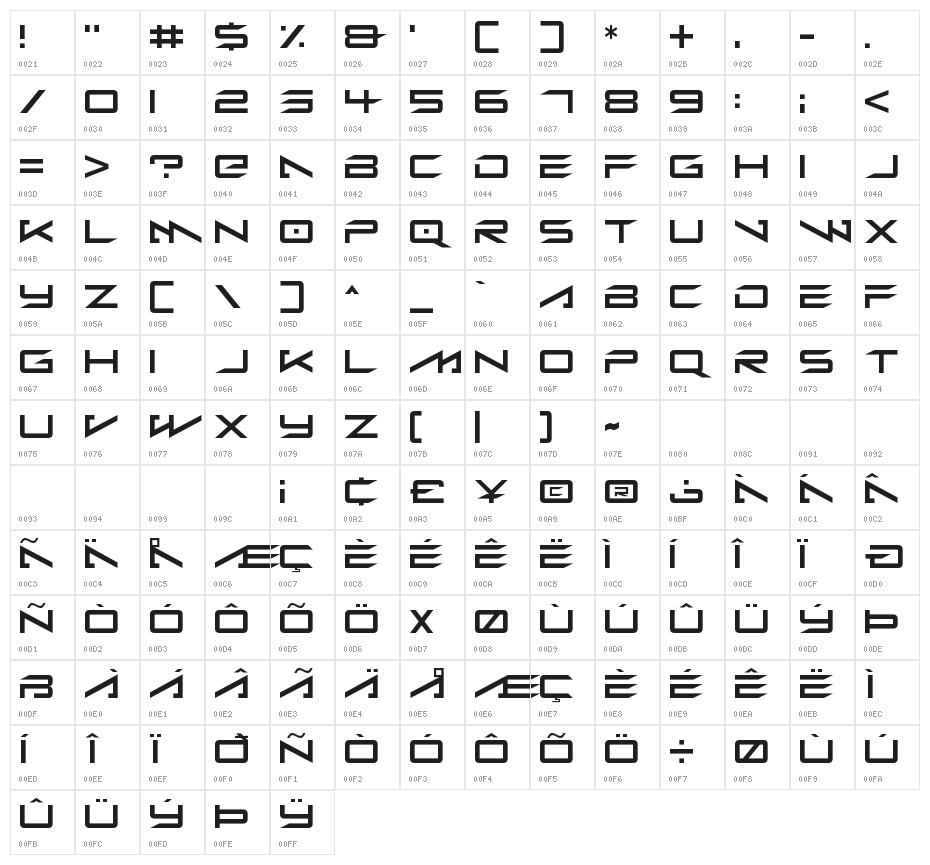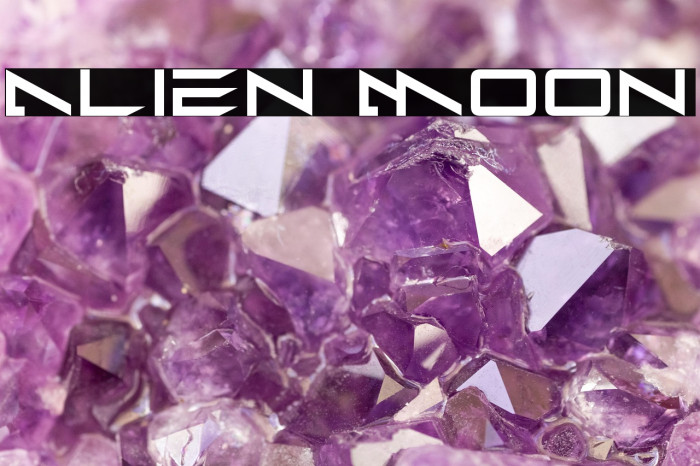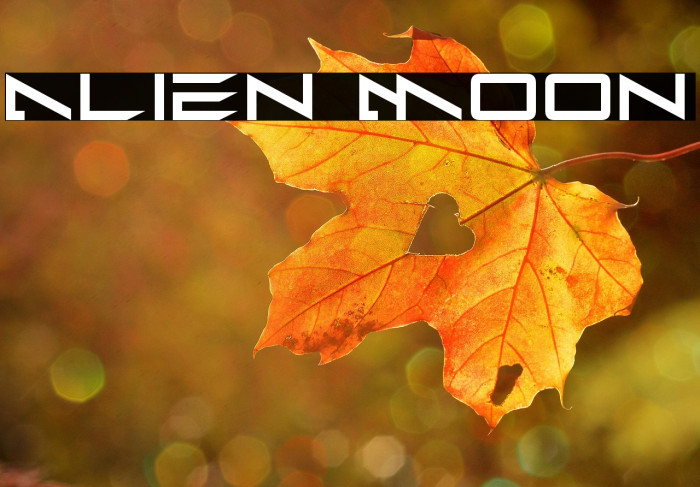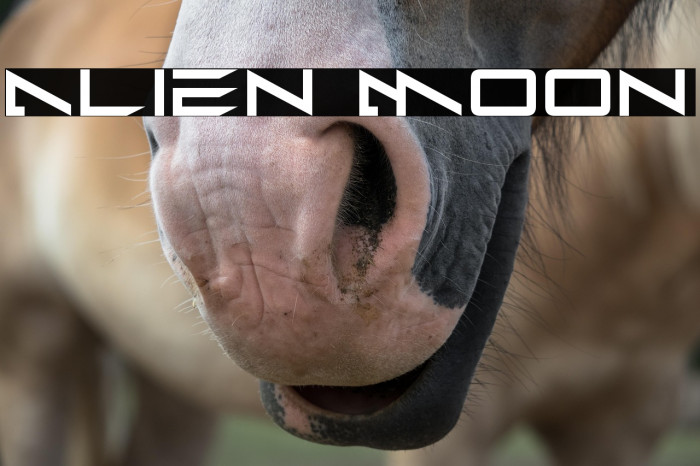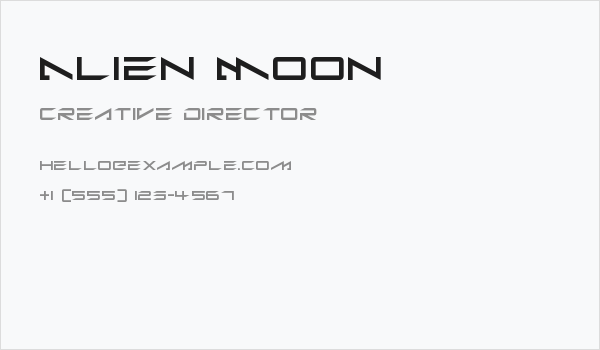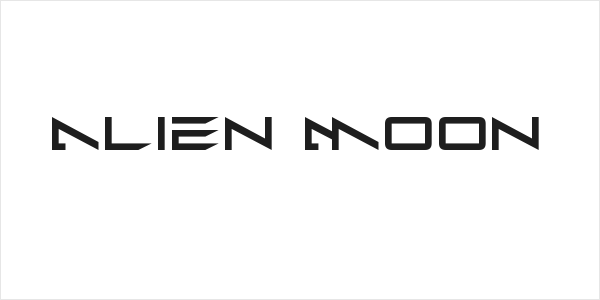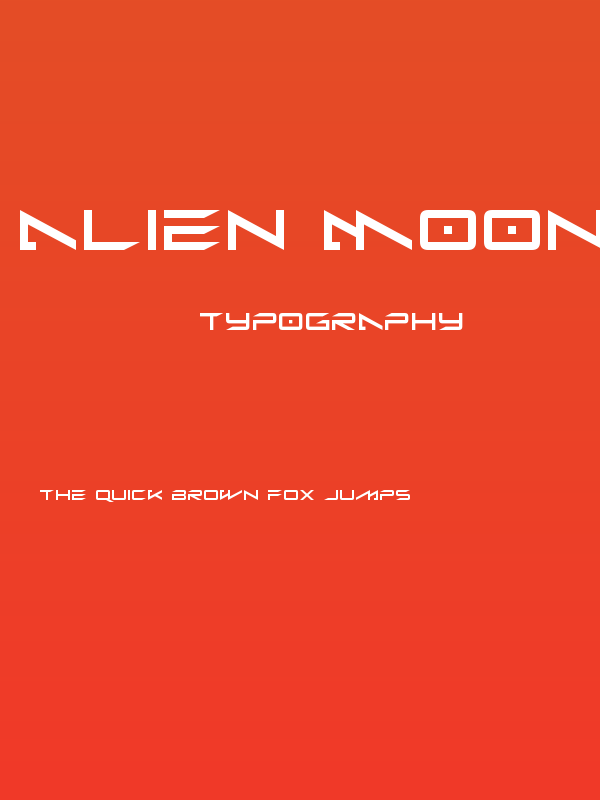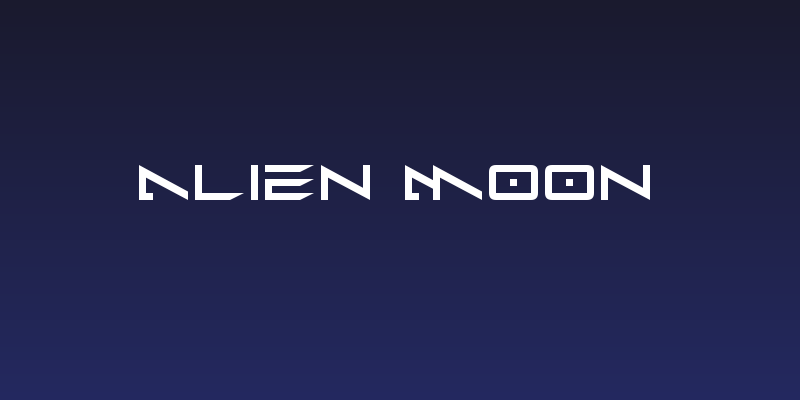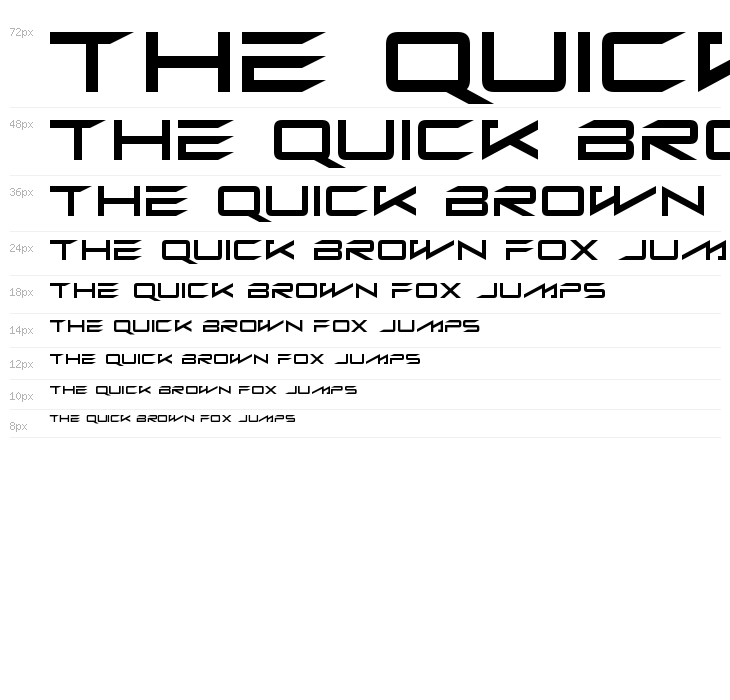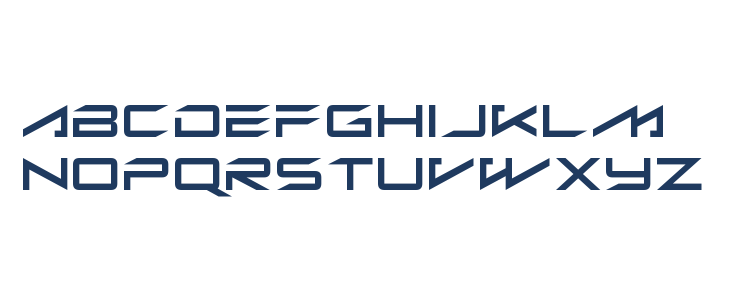
Alien Moon Font
Alien Moon Description
This font features a futuristic and angular design, characterized by sharp edges and geometric shapes. The letters have a unique, space-inspired aesthetic, with a consistent angular theme throughout both uppercase and lowercase characters. The numerals and special characters follow the same design principles, maintaining a cohesive look. The font's distinct style makes it stand out, with a modern and edgy appearance that is both eye-catching and memorable. Its bold and structured form gives it a strong presence, suitable for projects that require a contemporary and innovative touch.
| Proposed Projects | Ideal for sci-fi themed designs, technology branding, video game titles, and futuristic posters. |